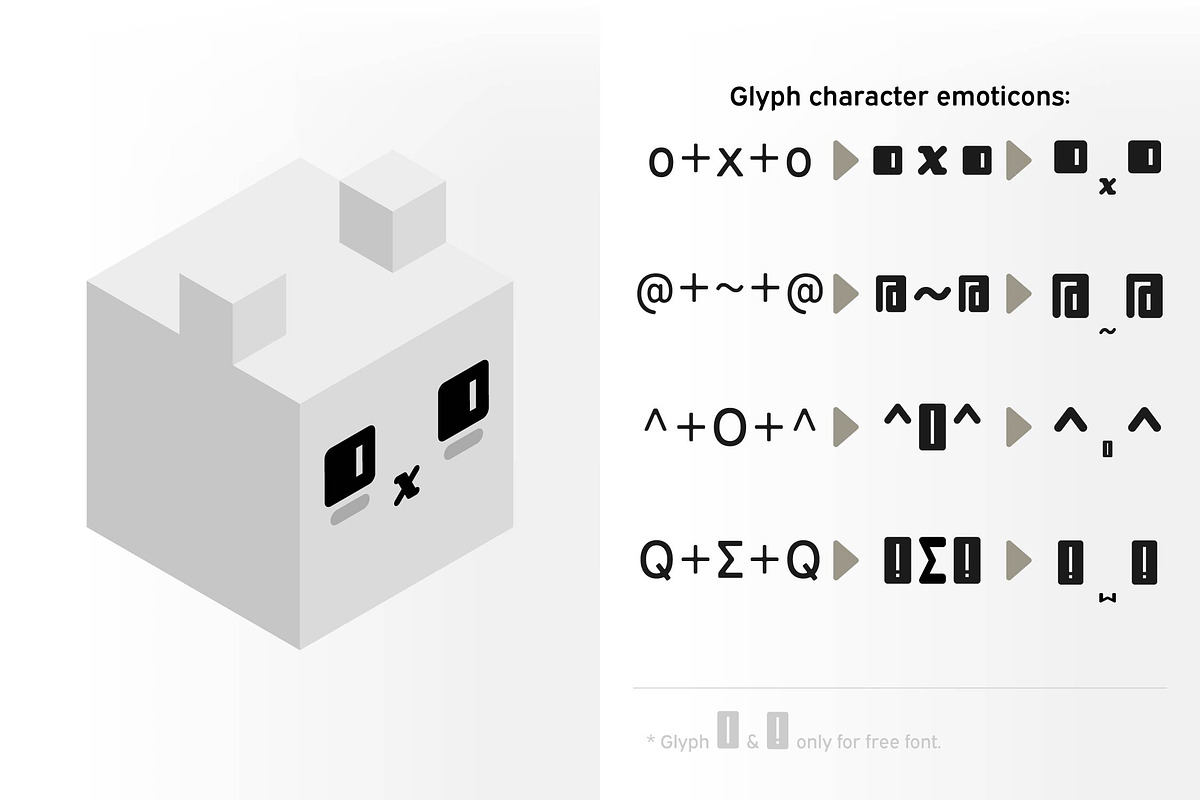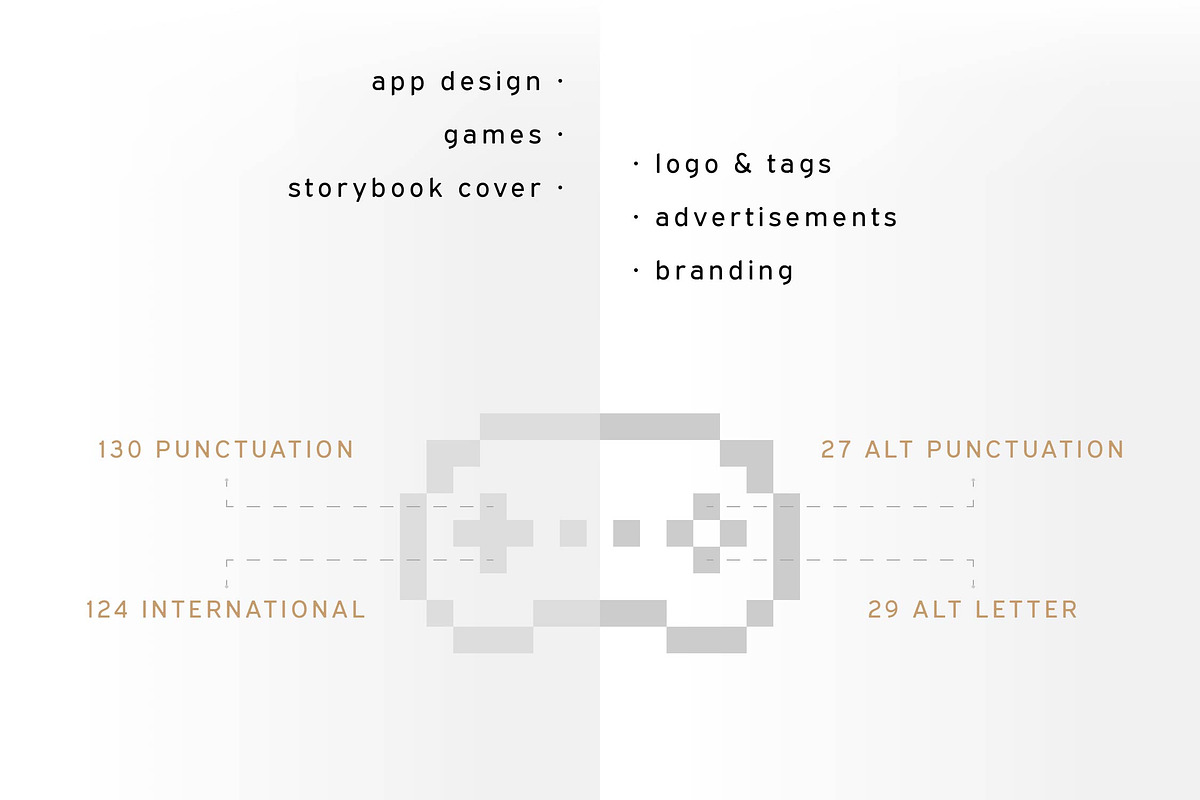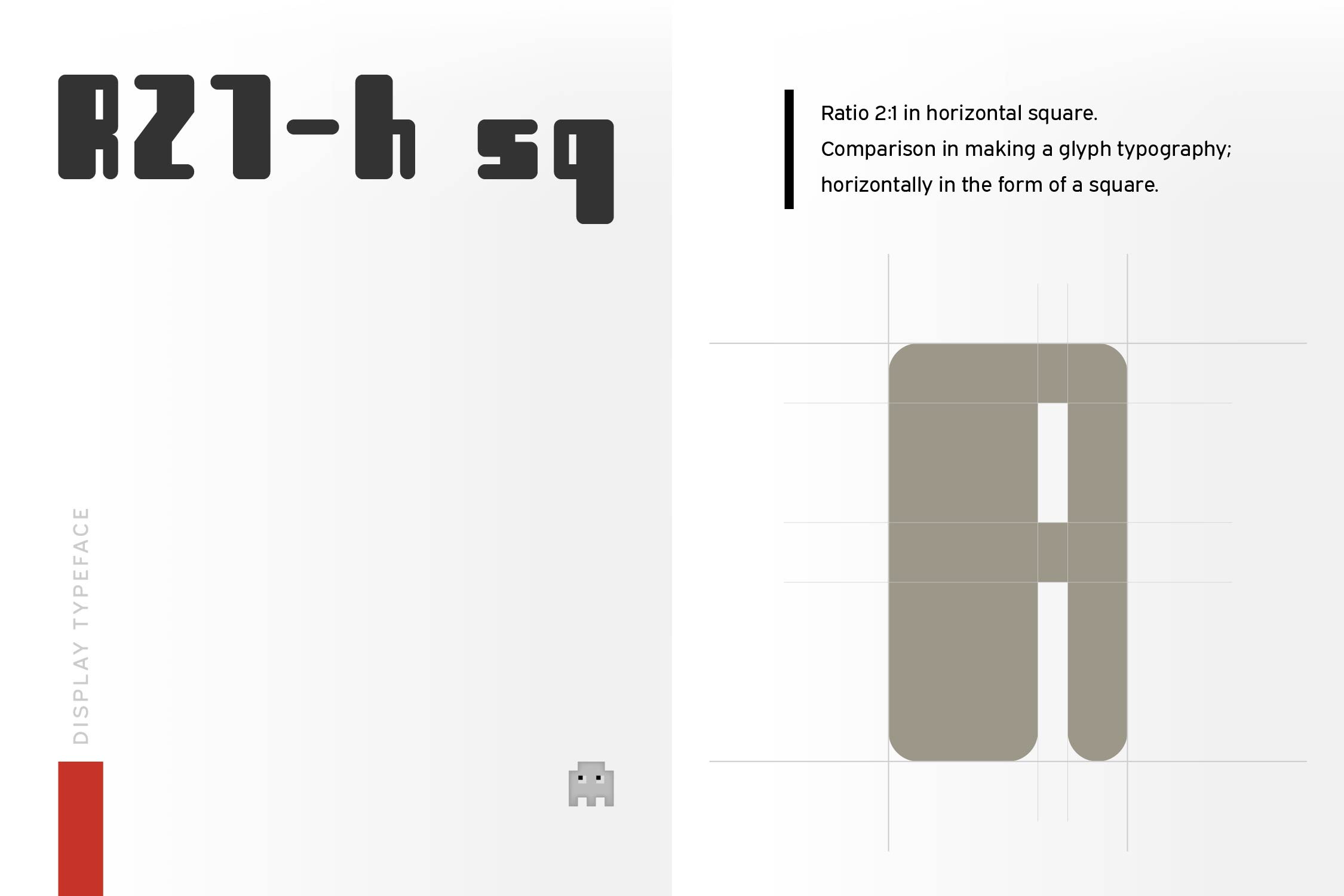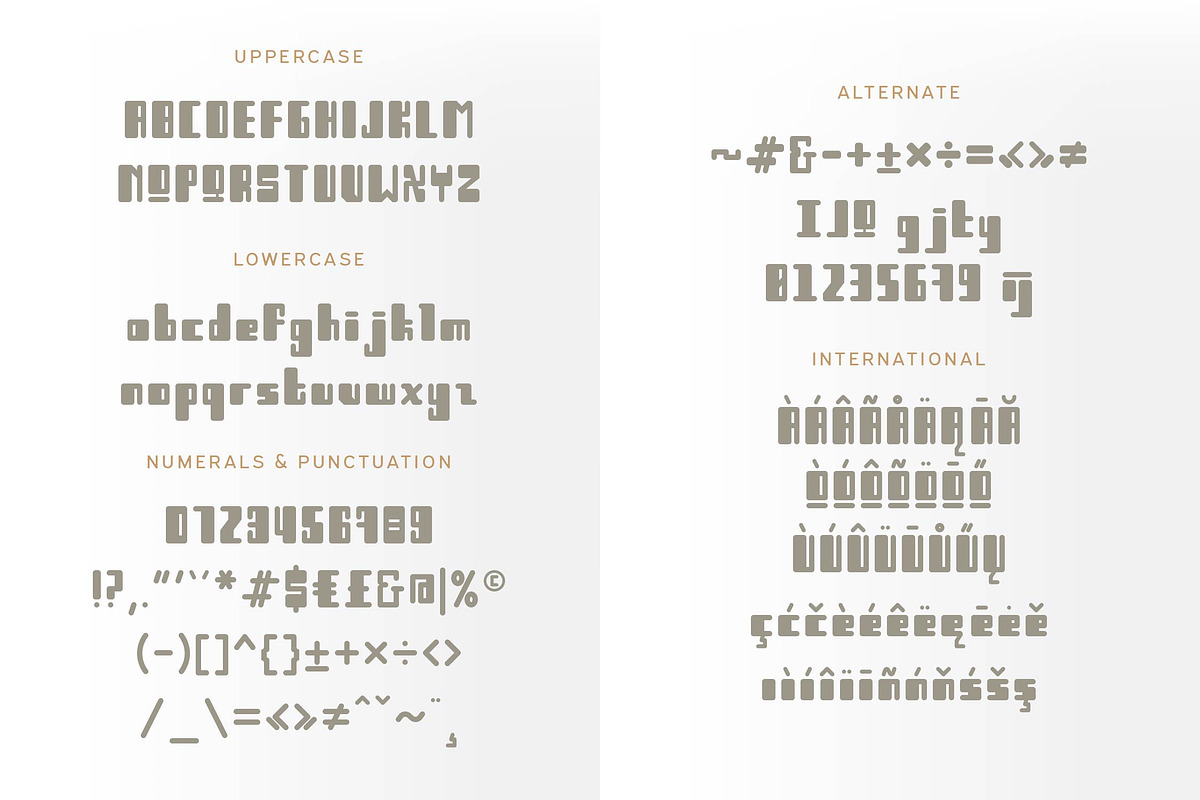
R21-h sq [Display Font]
R21-h sq is stand for "Ratio 2:1 in horizontal square"; a comparison in making a glyph typography, horizontally in the form of a square.
R21-h sq font consists of bold-retro typeface with its own unique funky style. Suitable for app design, games, toys character face, storybook covers, logos, advertisements, branding, poster, or anything that needs a daring and fresh typography.